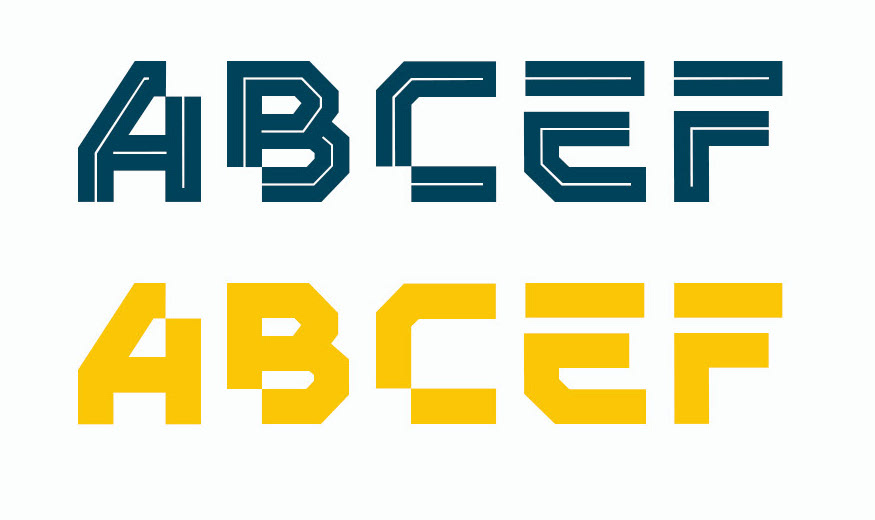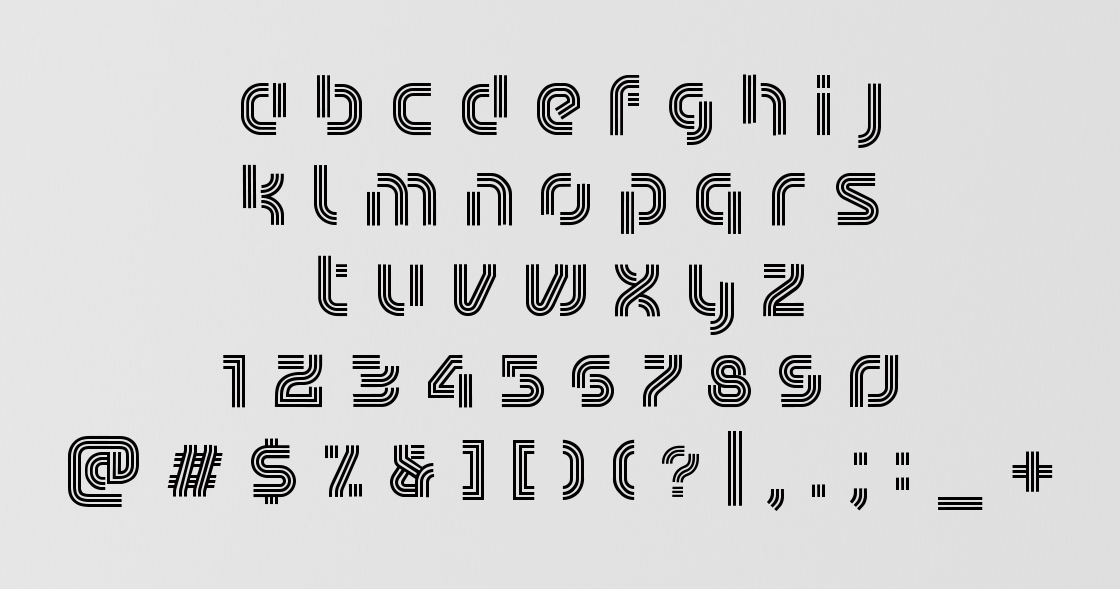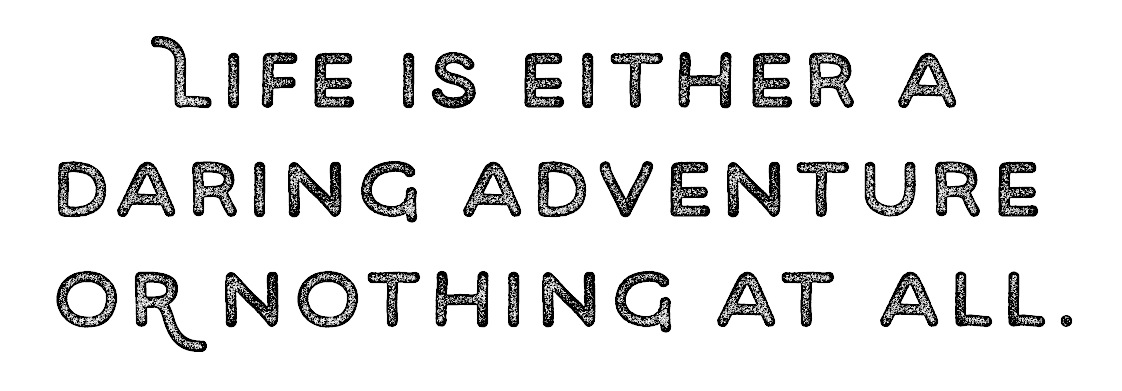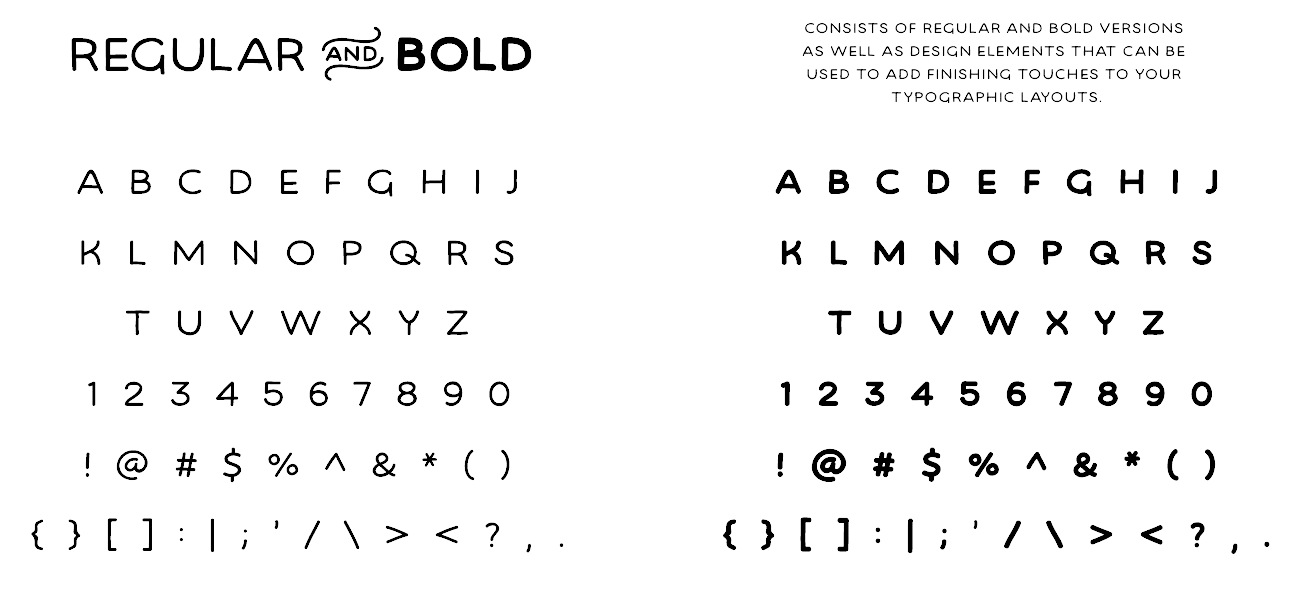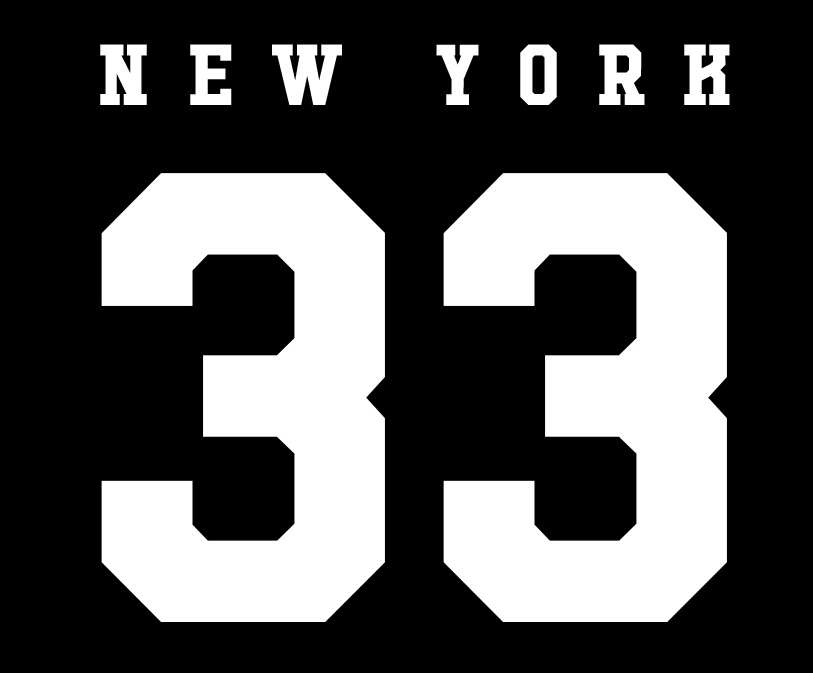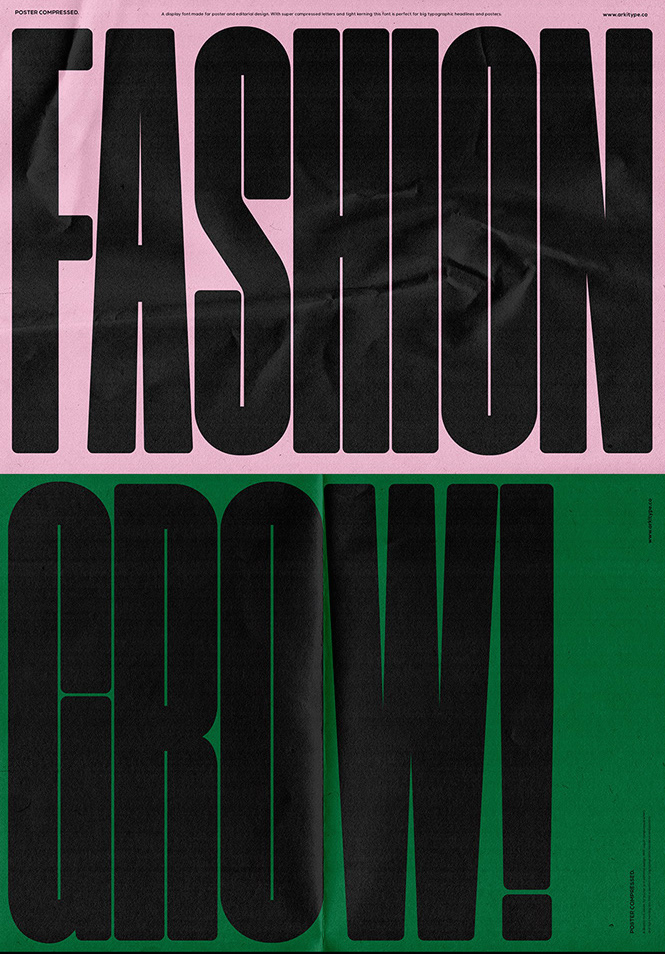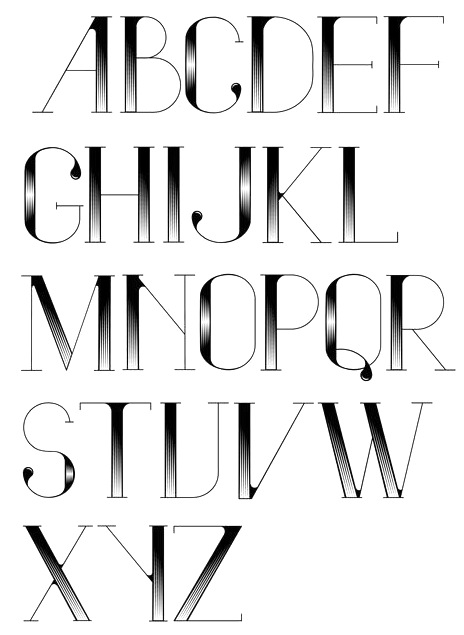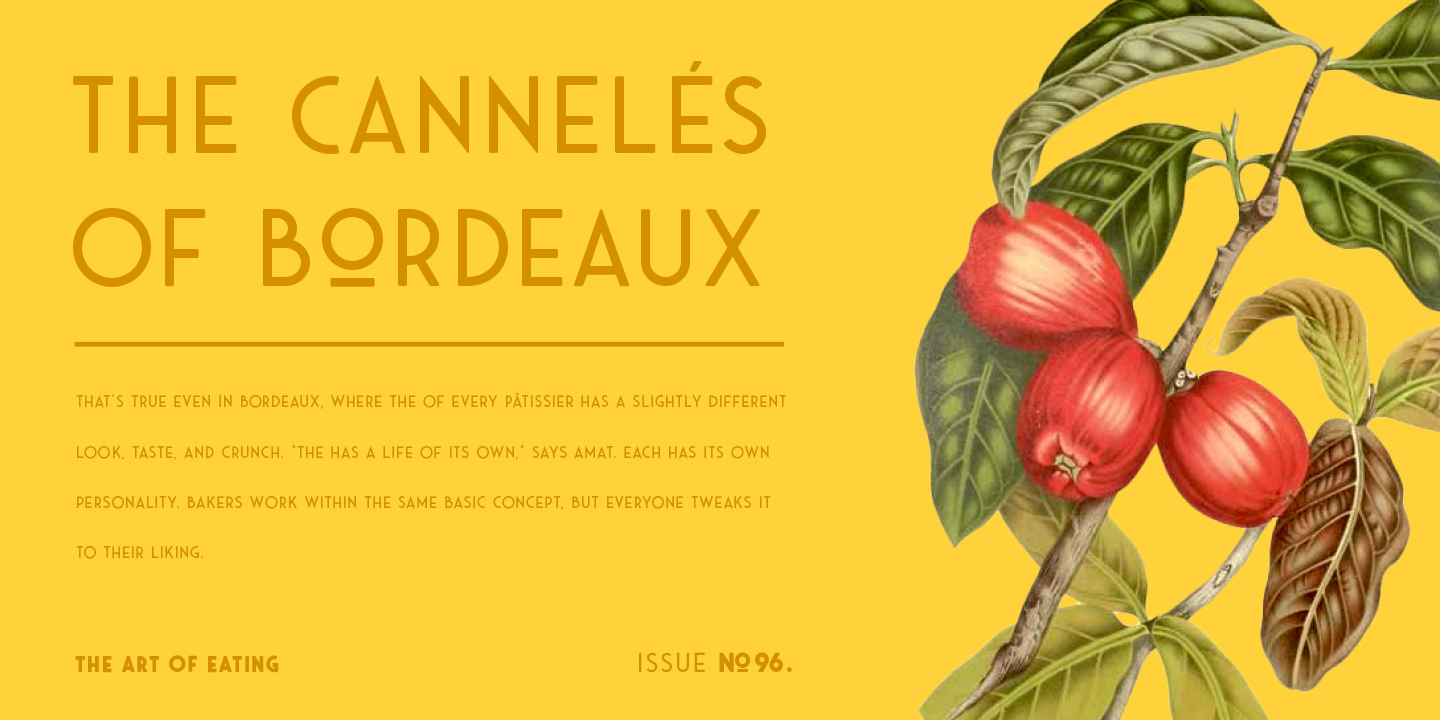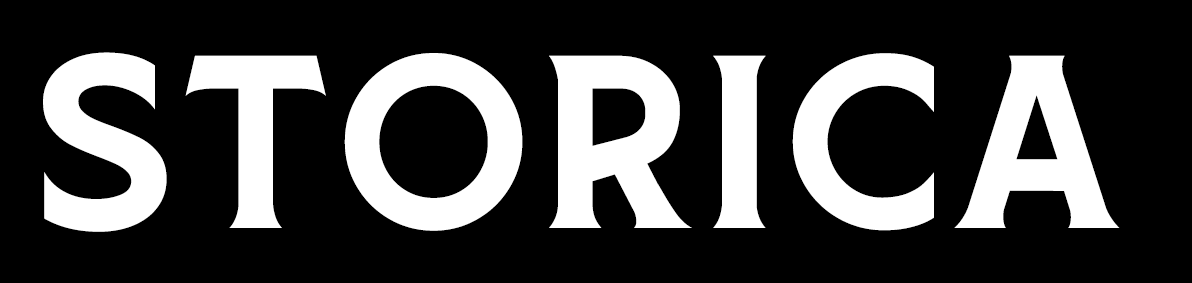
Arkitype (was: Virtue Creative) [Andrew Footit]
Andrew Footit (b. 1984) runs his own type foundry in Johannesburg, South Africa. He is also known as Arkitype. Until 2014, his type studio was called Virtue Creative and before that, Virtue84. In 2017, he set up Arkitype. His typefaces:
• The very simple monoline rounded geometric typeface Modulus (2011). Updated to Modulus Pro in 2019.
• The stunning art deco typeface Vindeco (2011).
• Gigafont (2011): a free bubblegum font.
• FunFair (2012): hand-printed.
• Virtus Sans (2012): a clean 4-style sans family.
• the Western family Westro (2012, +Inline).
• The free rounded sans drafting font Struct (2013).
• The four-style vintage poster typeface The Woods (2013).
• The spurred letterpress typeface family Roper (2014). Roper evolved into the octagonal typeface family Hudson NY (2015) and Hudson NY Pro (2020). Hudson NY Regular, Serif and Slab are athletic lettering / octagonal typeface families.
• Bosk Hand.
• Roves (2016). A camping style set of fonts, including several stencil typefaces.
• Anchor Script (2016). Inspired by classic cursive connected handwriting.
• Navigator (2016). Inspired by the early explorers.
• Bowline Script (2016). A vintage monoline cursive script typeface.
• Saveur Sans (2017) and Saveur Sans Round (2017). A lovely sans typeface family that is inspired by art deco and French cafes.
• Comply Slab (2017). All caps and octagonal, with possible applications in athletic lettering.
• 3 Stripe Type (2017) and Adidas Nemeziz (2017). Prismatic typefaces.
• Technol (2018).
• Statewide (2018). An all caps squarish techno display sans family.
• ESPN Next (2018). An octagonal inline custom typeface. ESPN Heroes (2019) is a six-lined prismatic typeface.
• Poster Compressed (2019). A piano key typeface.
• Neumatic Compressed (2019), Neumatic Gothic Round (2020) and Neumatic Gothic (2019).
• Protrakt Variable (2019). Nine variable width all caps fonts, of different thicknesses.
• Coastal (2020). A twelve-style all caps sans.
• Compose. An 18-style minimalist sans with elliptical curves and quite open counters.
• Storica (2021). A 9-style all caps vintage serif.